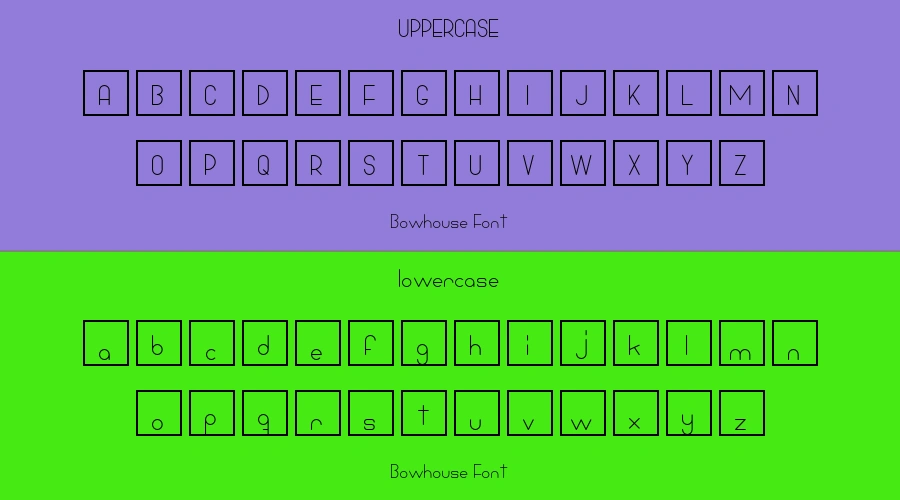
About Bowhouse Font
When typographic excellence matters most, Bowhouse Font delivers through its thoughtful blend of unique personality and reliability. Specially crafted for magazine covers, it offers the authenticity and design innovation required for sophisticated design work. Every detail serves a purpose.
The character set showcases thoughtful details like architectural precision alongside functional word-end alternates. This proves especially valuable in compliance materials, where scalability directly influences results. Particular attention was paid to corner treatment and character during development.